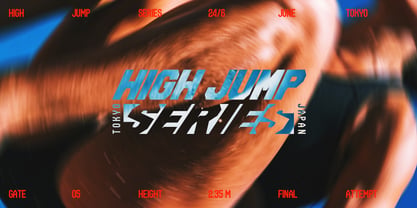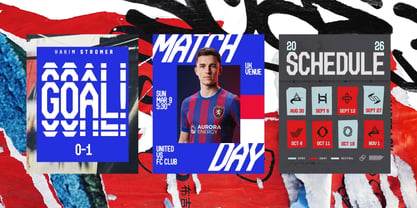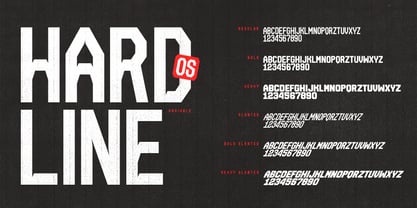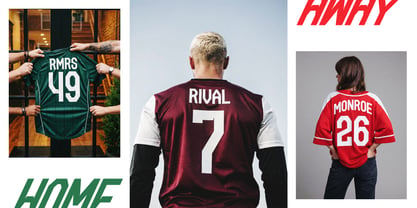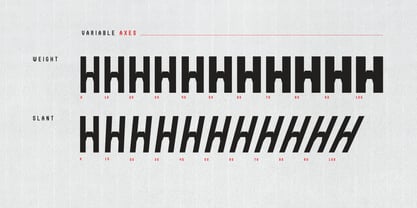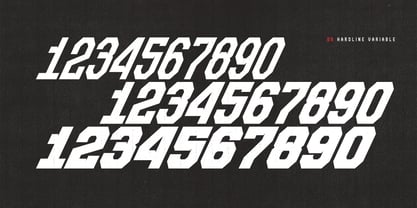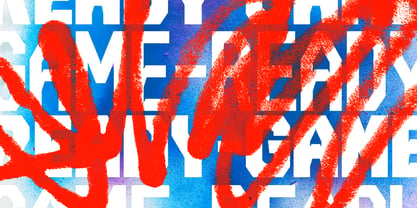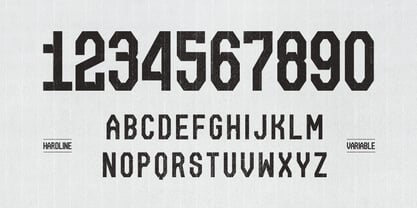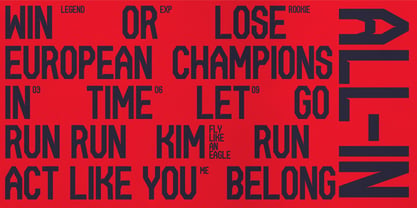
OS Hardline
The OS Hardline Font Family was designed by Fabio Troyli and published by Off Season. OS Hardline contains 7 styles and family package options. More about this family
OS Hardline is a bold, high-impact variable display typeface for work that needs to hit hard. Hardline is built for visual intensity. Born from the energy of competitive sports, where movement, pressure, and precision collide, it brings sharp cuts, compact proportions, and aggressive slanted dynamics to any project that demands presence. WHAT IT'S FOR Sports: Jersey numbers, team graphics, matchday posters, player rosters, fixture lists Branding: Competitive brands, gaming, motorsport, basketball campaigns, football clubs Editorial: Magazine covers, headlines, pull quotes Digital: Social media graphics, streaming overlays, esports content Culture: Gaming, fashion, music, street culture, contemporary branding The typeface performs best in short-form, high-contrast applications where rhythm and impact matter. Its number design is particularly strong for athletic contexts: jersey backs, scoreboards, schedules, player cards. TECHNICAL FEATURES - Variable font with weight and slant axes - Uppercase alphabet optimized for display - Bold, athletic numerals - Essential punctuation - Designed to work at large sizes (36pt+) DESIGN NOTES OS Hardline combines technical structure with raw athletic attitude. It's controlled but explosive. The slanted energy pushes forward without losing legibility. The condensed proportions let you fit more power into tight spaces. While rooted in sport, Hardline isn't limited to it. It works anywhere you need a condensed, forceful, modern display font with competitive edge. PAIRING SUGGESTIONS Pair with clean sans serifs for contrast, or let Hardline dominate on its own in large-scale compositions. DESIGNED BY Off Season Studio, based in Rome, Italy We made Hardline for designers who want typography that feels strong, fearless, and built to compete.